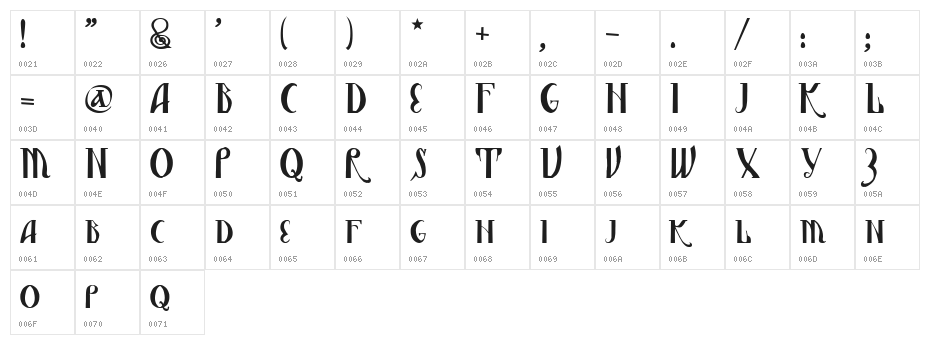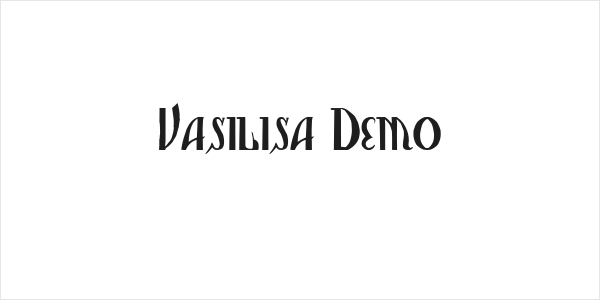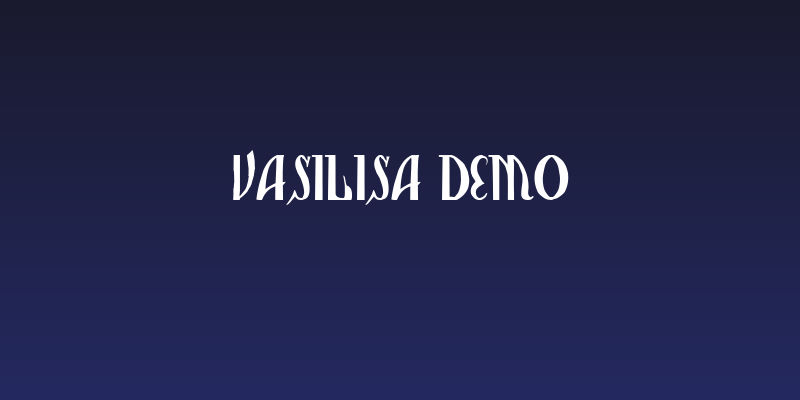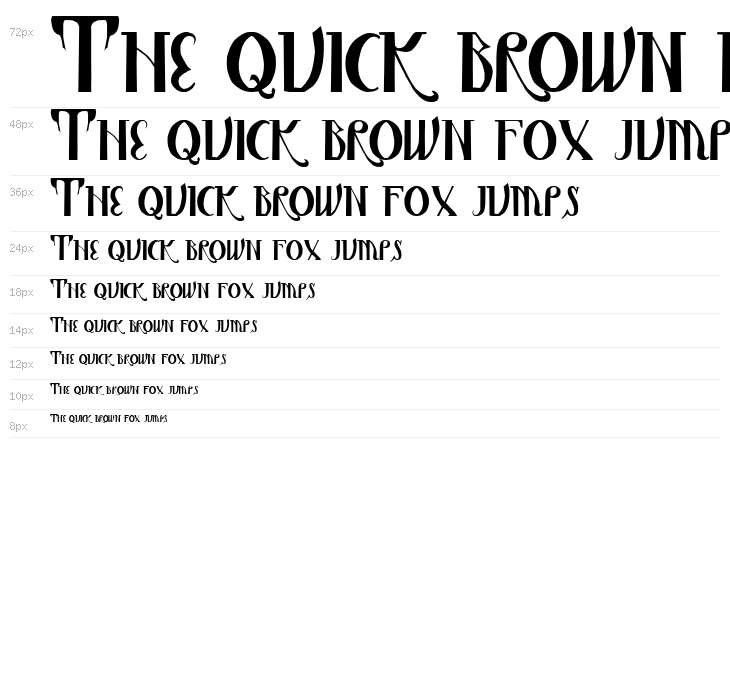
Vasilisa Demo Font
Vasilisa Demo Description
This font features a unique blend of modern and vintage elements, characterized by its bold and decorative style. The uppercase letters have a distinct flair with sharp angles and elegant curves, creating a dynamic and eye-catching appearance. The lowercase letters maintain a consistent style, with some characters featuring subtle flourishes that add to the overall decorative nature. The numerals are bold and consistent with the overall design, while the special characters complement the font's aesthetic with similar stylistic elements. This font is ideal for projects that require a strong visual impact and a touch of sophistication.
| Overall Style | Modern, Vintage |
| Proposed Projects | Ideal for branding, poster design, book covers, and any project requiring a strong visual impact. |